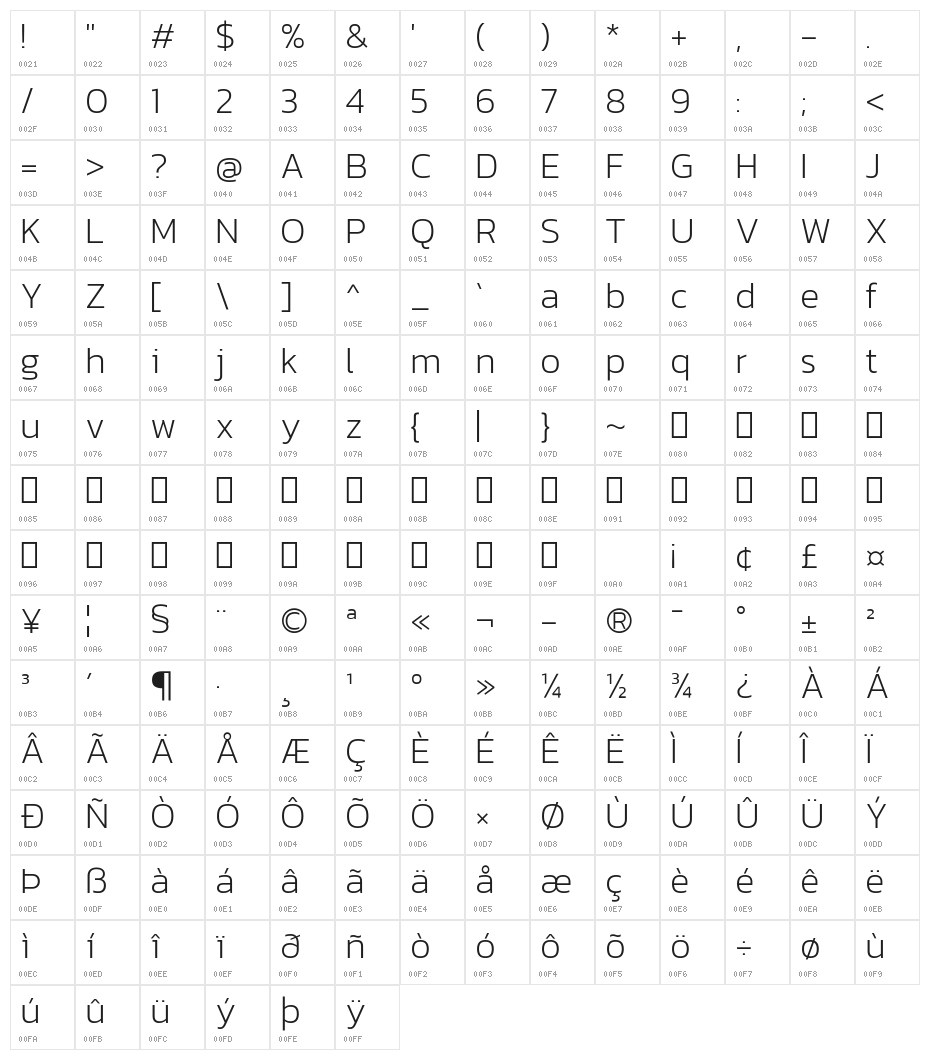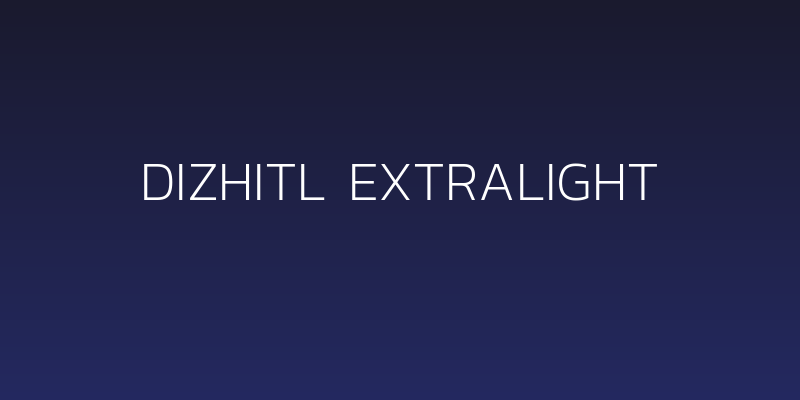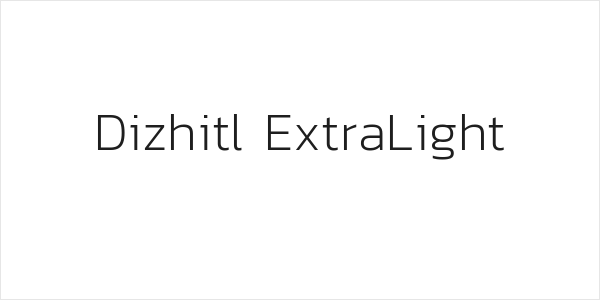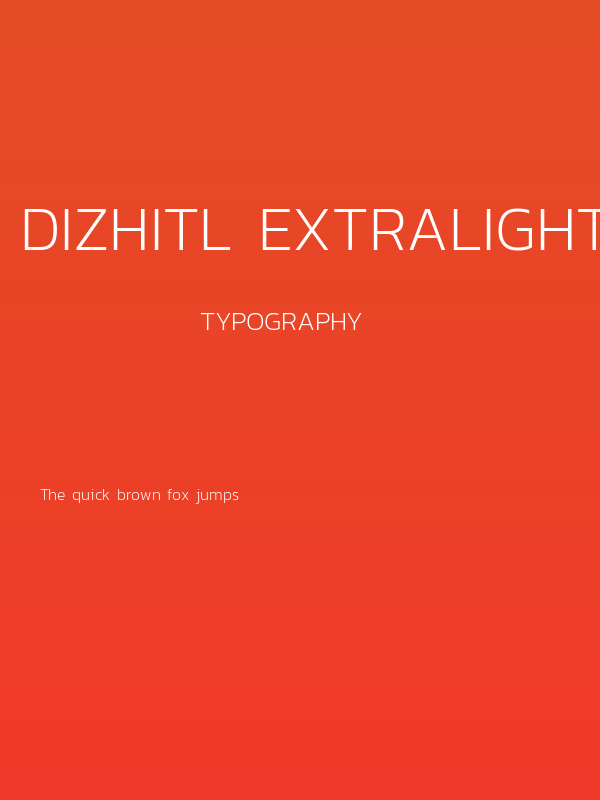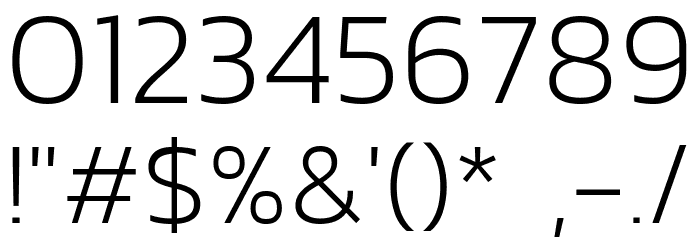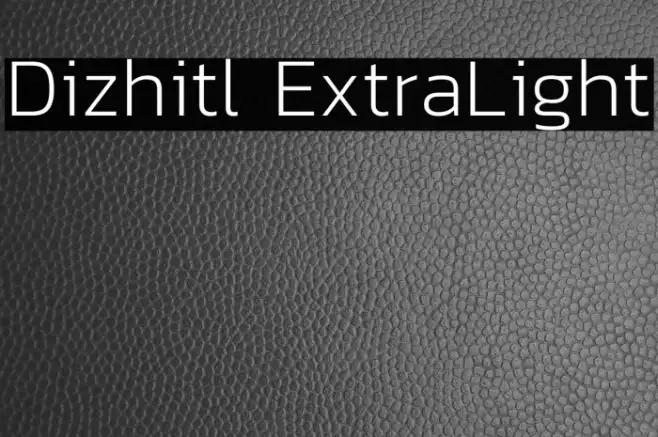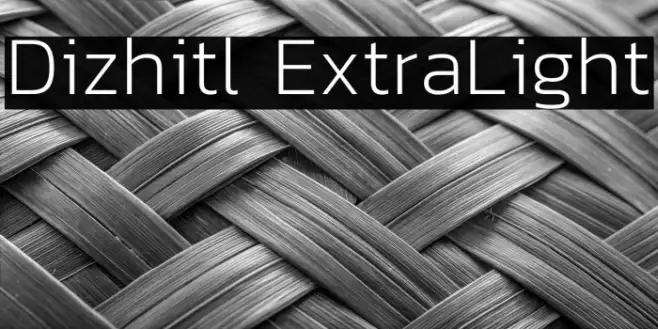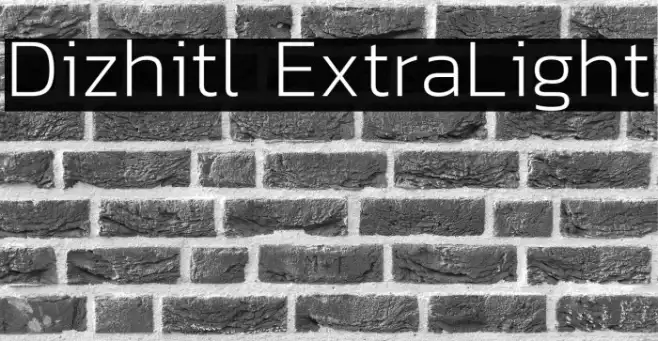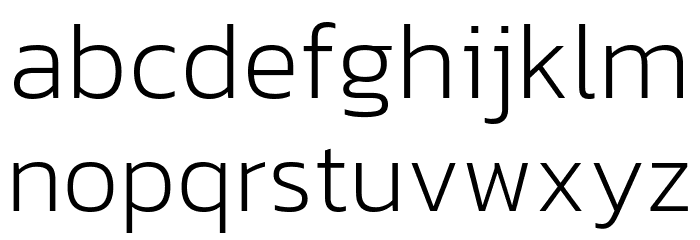
Dizhitl ExtraLight Font
Dizhitl ExtraLight Description
This font features a clean and modern sans-serif design with a focus on simplicity and readability. The characters are evenly spaced with a consistent stroke width, providing a harmonious and balanced appearance. The uppercase and lowercase letters are well-proportioned, maintaining a uniform height that enhances legibility. The numerals and special characters are designed to complement the alphabet, ensuring a cohesive look across all text elements. The overall style is minimalistic, making it suitable for a wide range of applications where clarity and elegance are desired.
| Proposed Projects | Ideal for digital interfaces, corporate branding, minimalist design projects, and editorial layouts. |